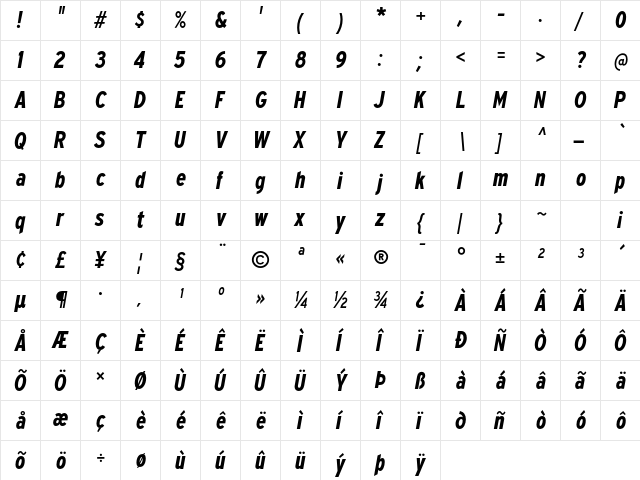
Expressway Cd Bold Italic
Design Context for Expressway Cd Typeface
Expressway Cd is a composed and adaptable typeface that performs quietly and consistently across a wide range of design contexts. The slanted form adds forward momentum and visual energy. The heavy weight commands attention and anchors typographic hierarchies.
Pro Tip: Try Expressway Cd for annotation and caption copy alongside an upright companion — the contrast in angle creates a dynamic but ordered typographic system.